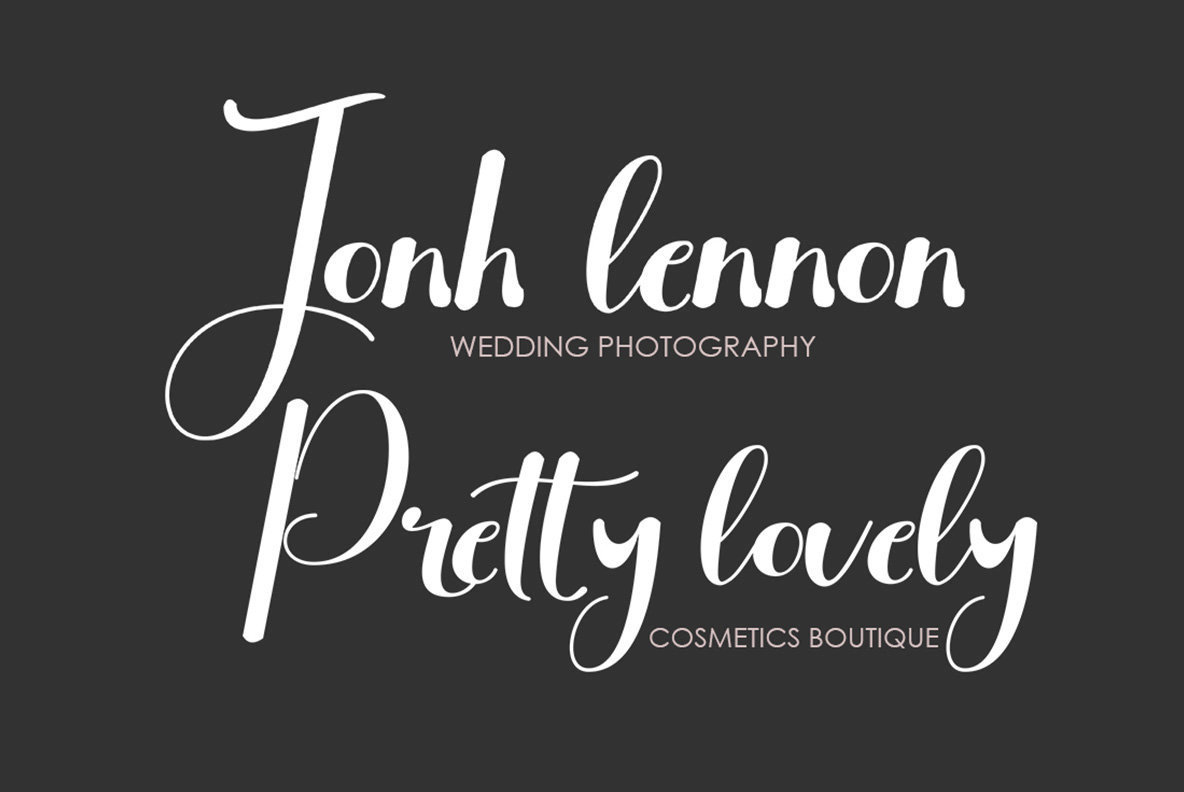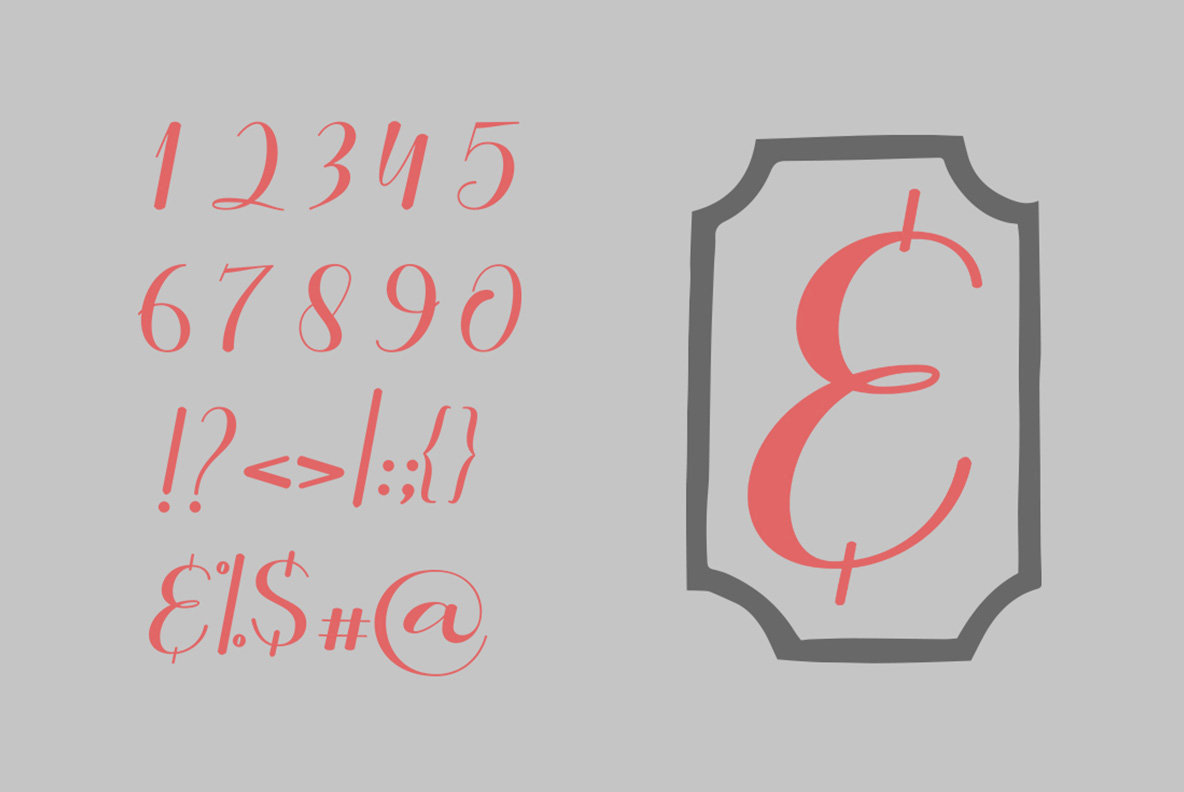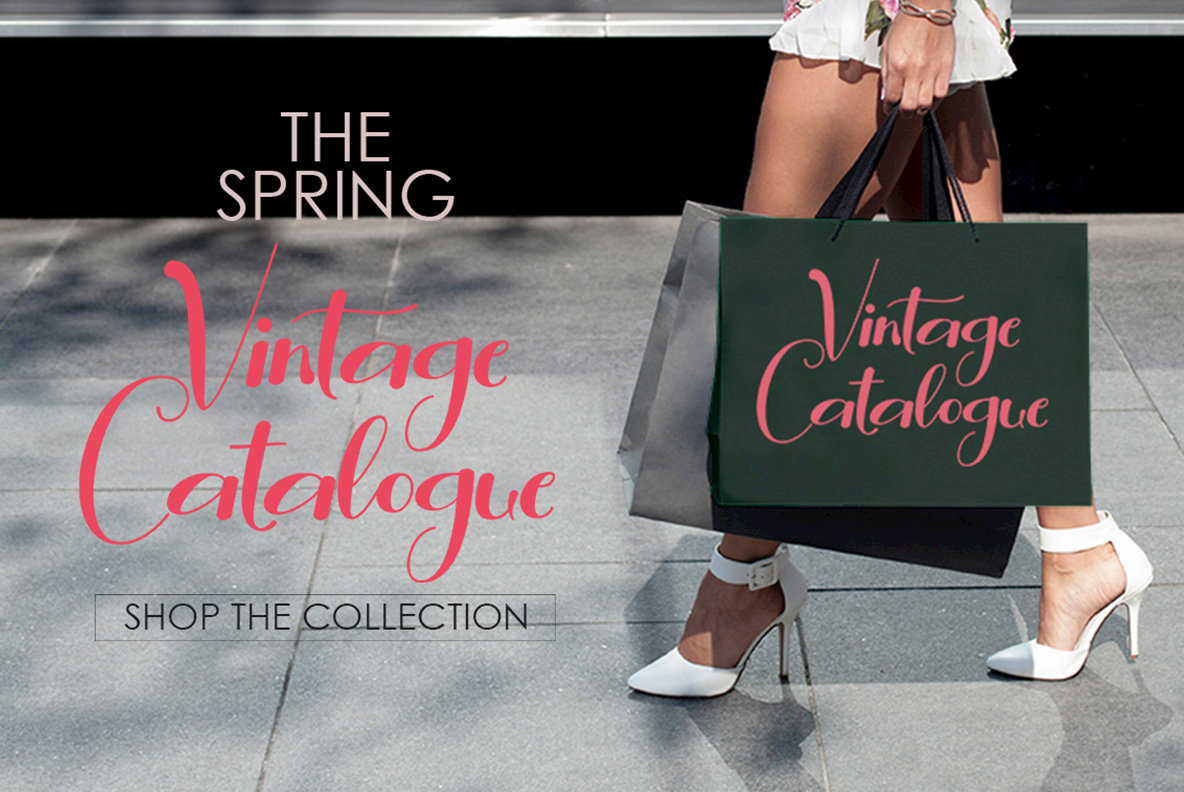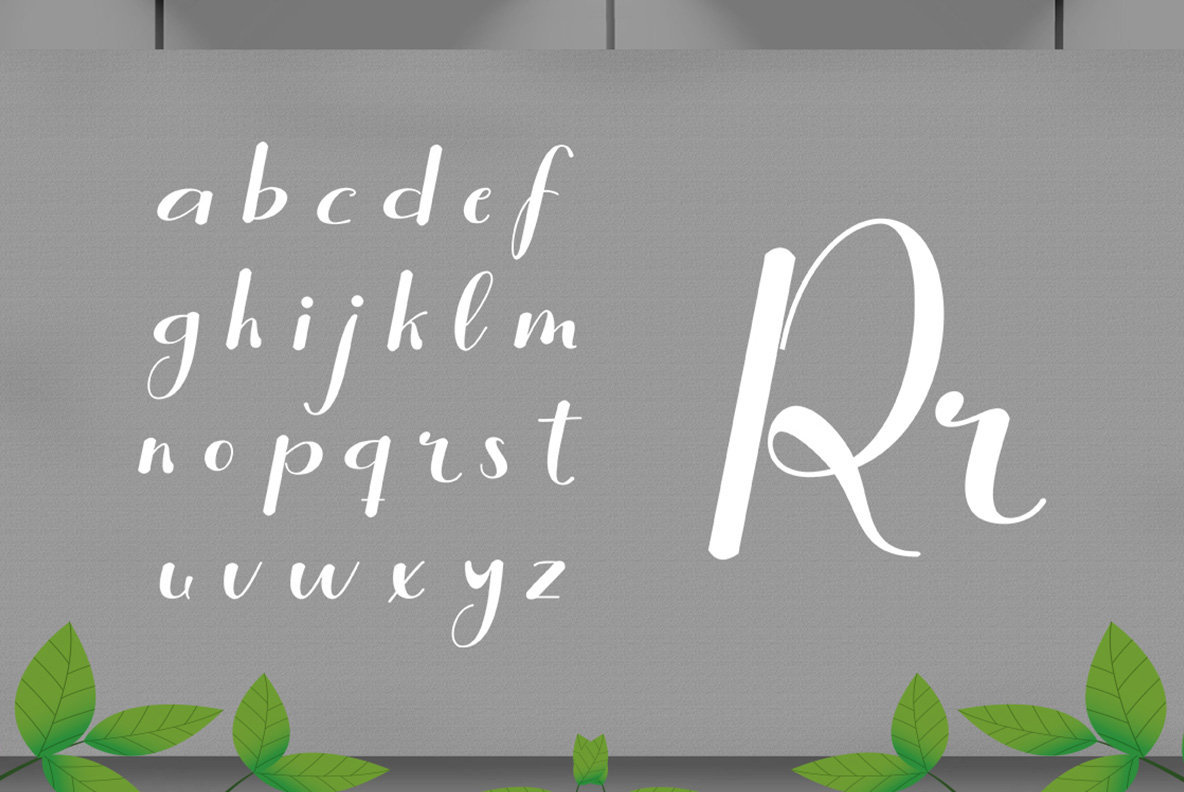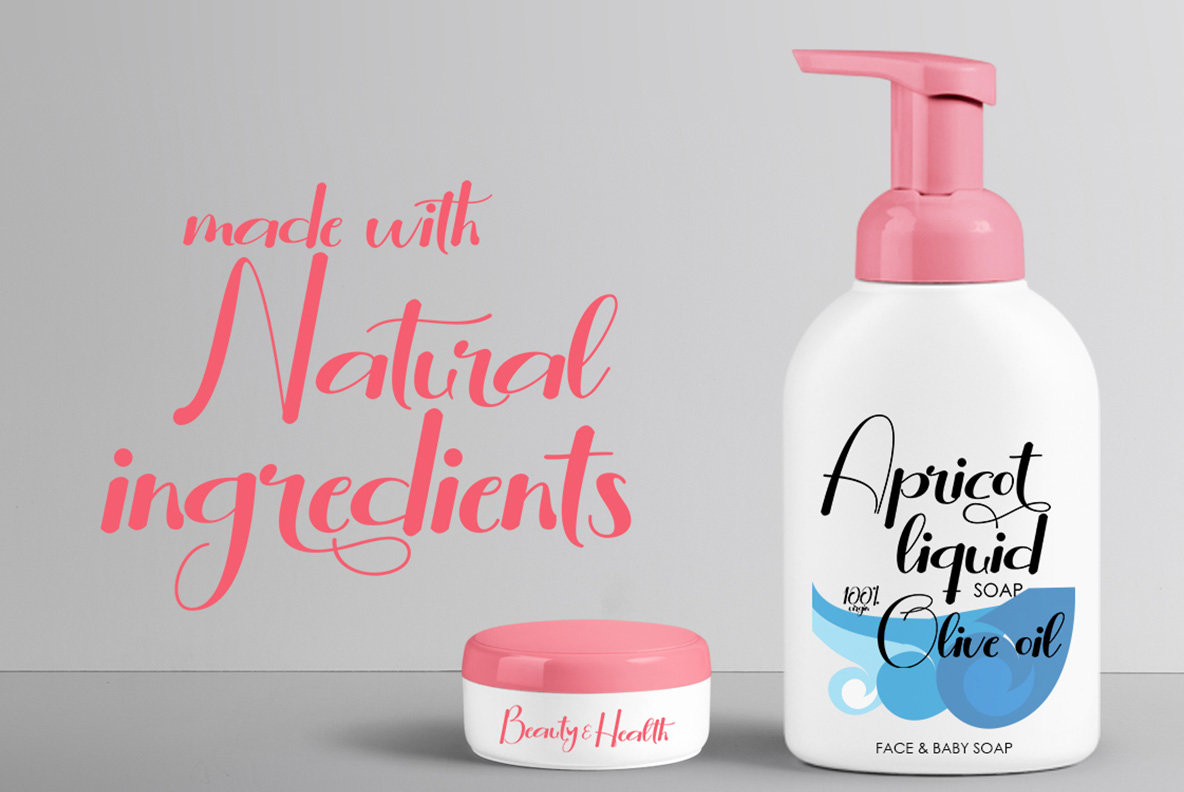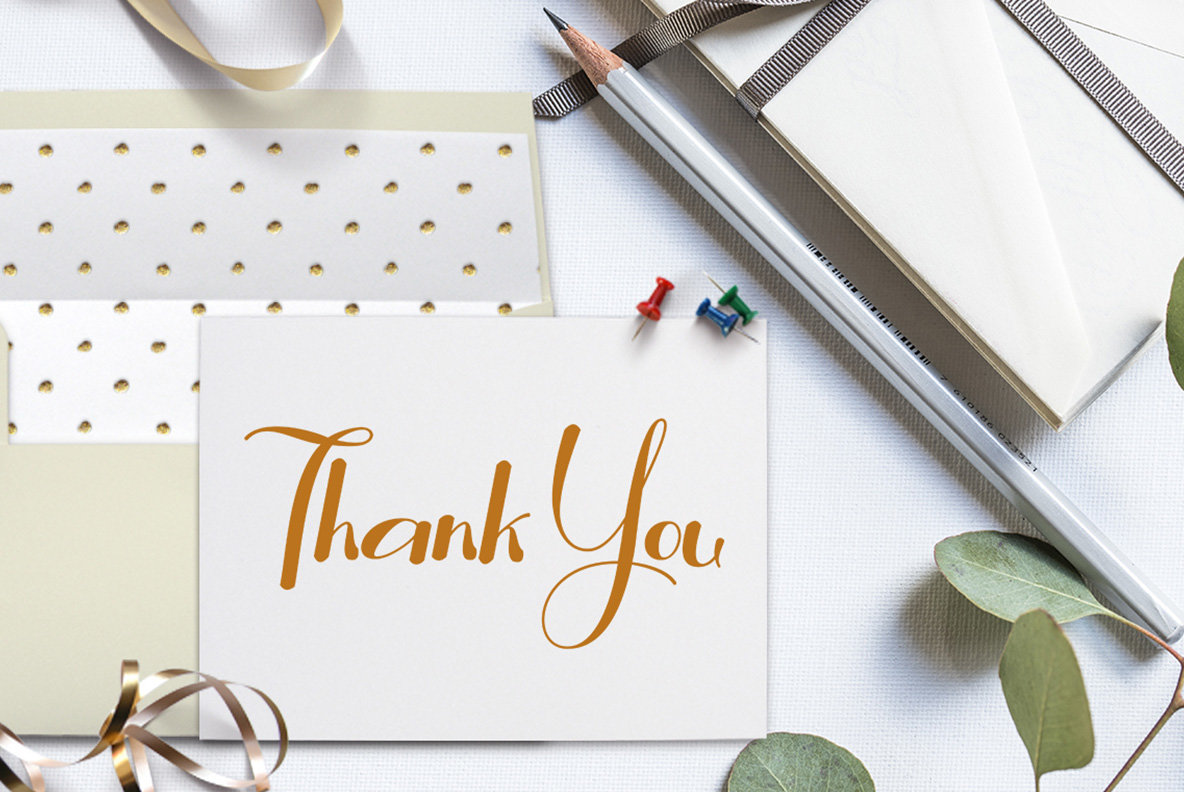
Rollent Font
Rollent
Rollent Script captures the essence of handmade script fonts, mimicking the fluidity and organic feel of personal signatures. Designed with a friendly touch, this font adds a personal charm to any project. It offers a comprehensive set of OpenType features, including ligatures and alternate characters, enhancing its versatility. Paired with the display complement, Rollent, this ensemble provides a harmonious synergy perfect for branding projects, product packaging, logos, and a variety of other visual elements such as posters, invitations, and greeting cards. Despite its artistic intricacy, accessing its alternative characters is straightforward, thanks to its PUA Unicode encoding.Rollent Script: An Elegant Handmade Font